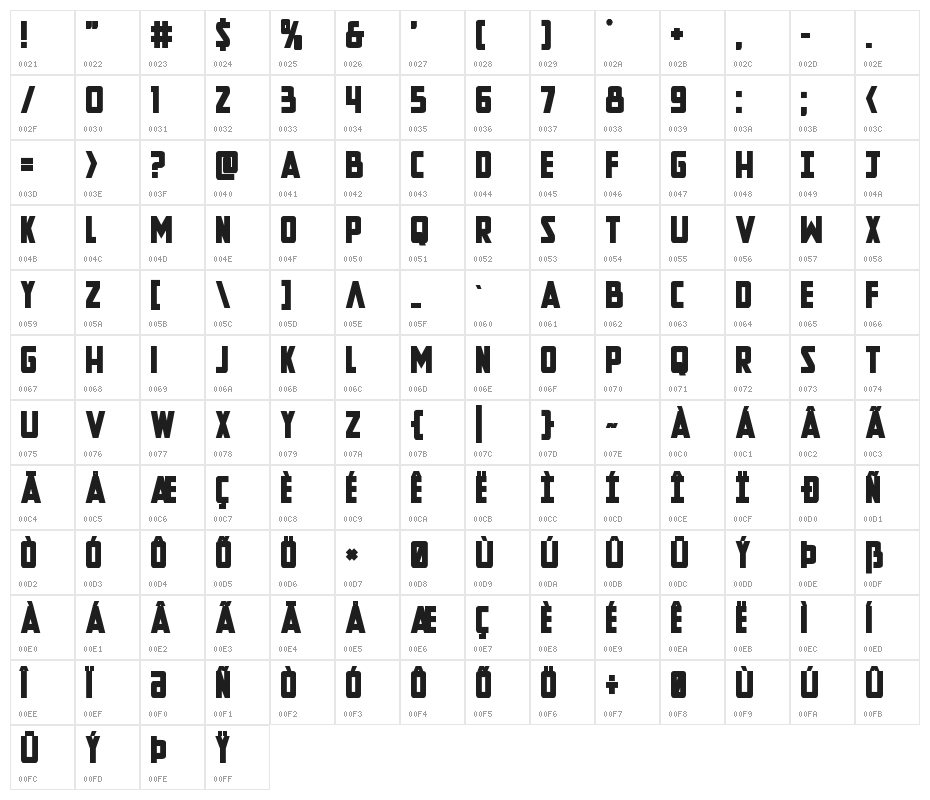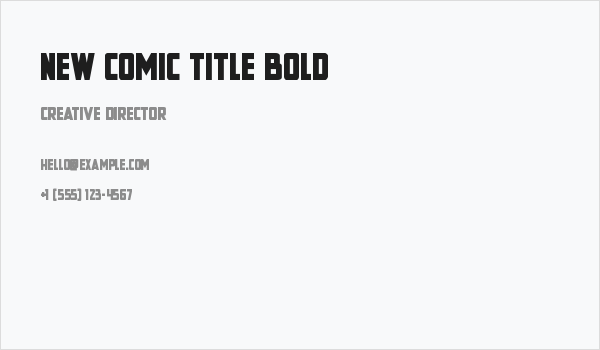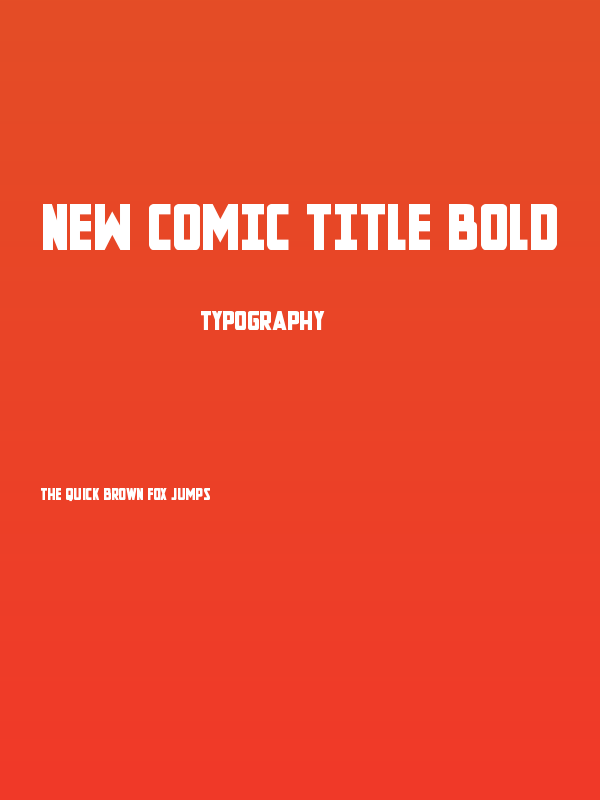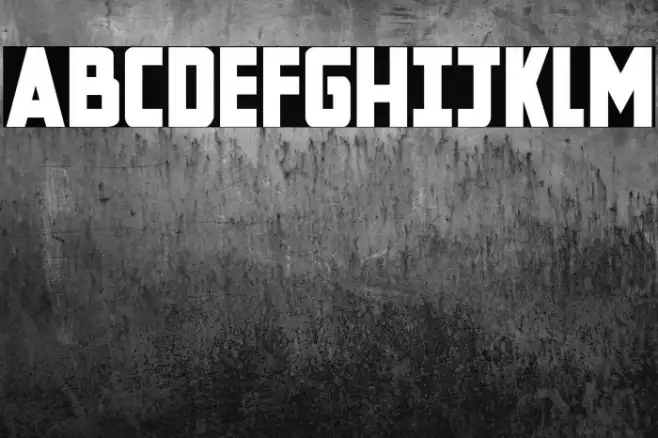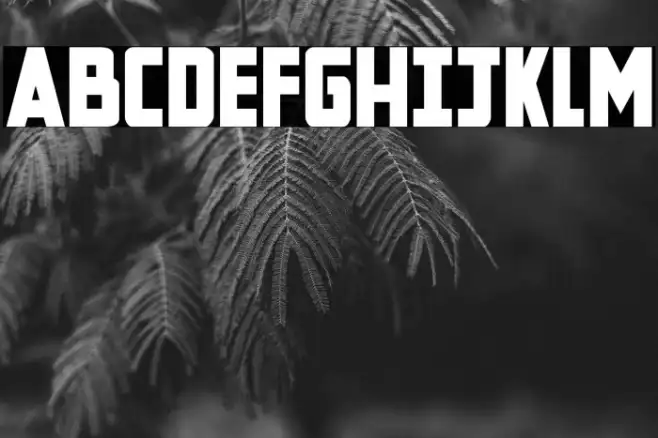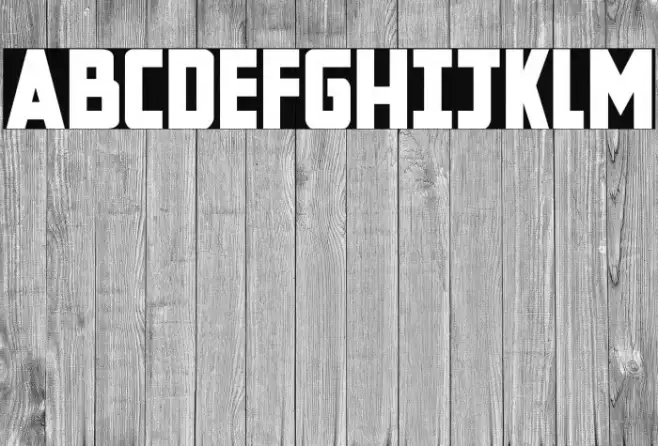
New Comic Title Bold Font
New Comic Title Bold Description
This font features bold, blocky characters with a strong presence, ideal for making a statement. The uppercase letters are uniform in height, with sharp angles and straight lines that give a modern, industrial feel. The numerals are equally bold, maintaining the same width and height as the letters, ensuring consistency across all characters. Special characters are designed to match the boldness and style of the alphanumeric characters, making them suitable for attention-grabbing headlines or titles. The overall design is clean and impactful, perfect for projects that require a strong visual impact.
| Proposed Projects | Ideal for comic book titles, posters, logos, and any design needing a bold statement. |